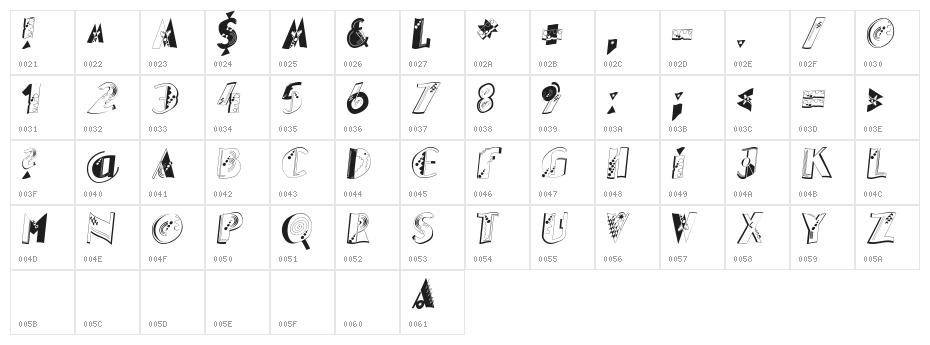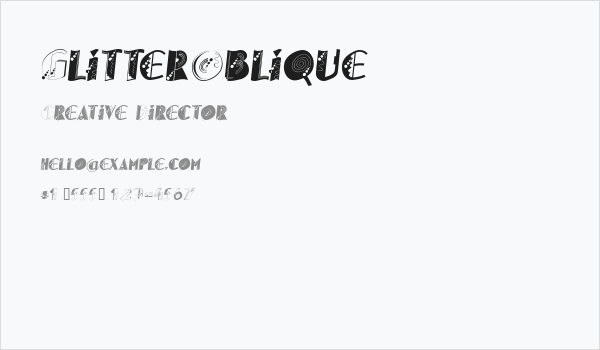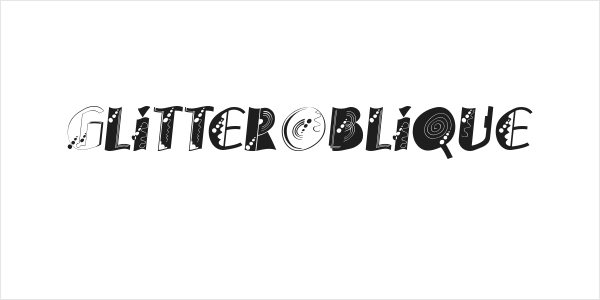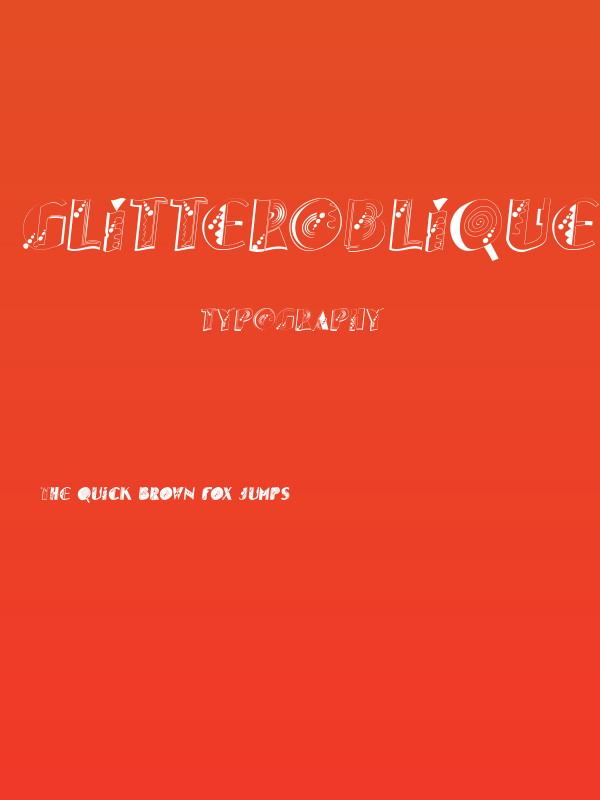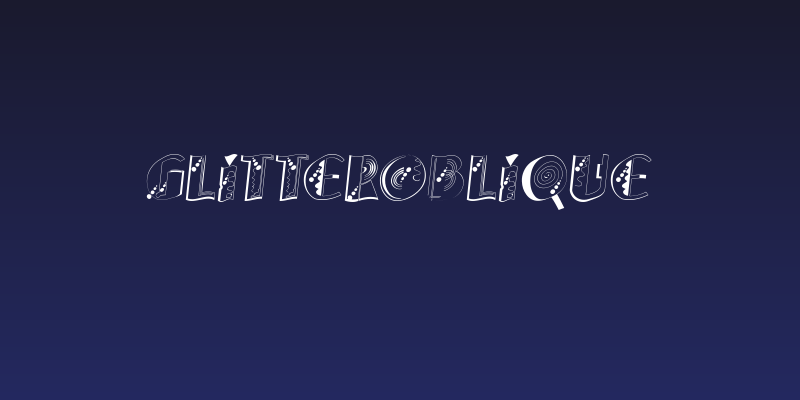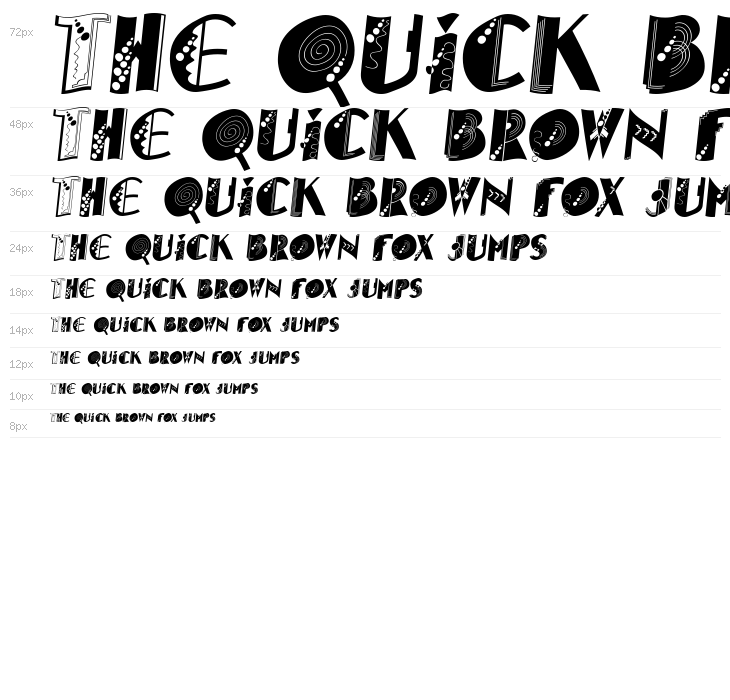
GlitterOblique Font
GlitterOblique Description
This font is a bold and playful decorative typeface with a unique and eclectic style. Each character is adorned with various patterns, including stripes, dots, and geometric shapes, creating a vibrant and dynamic appearance. The letters have an oblique orientation, adding a sense of movement and energy. This font is perfect for projects that require a fun and eye-catching design, such as posters, party invitations, or children's book covers. The combination of bold strokes and intricate details makes it stand out, while the consistent use of decorative elements across all characters ensures a cohesive look.
| Proposed Projects | Ideal for posters, party invitations, children's book covers, and creative branding. |